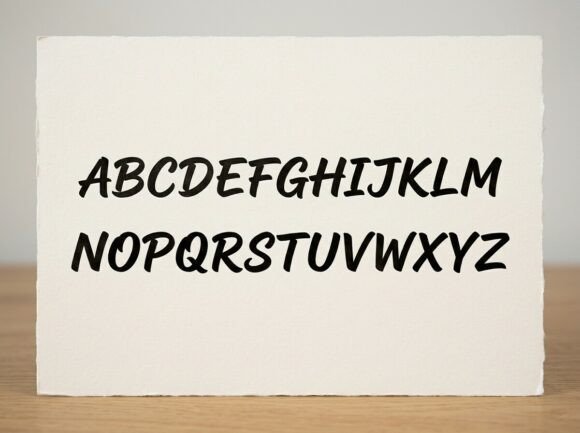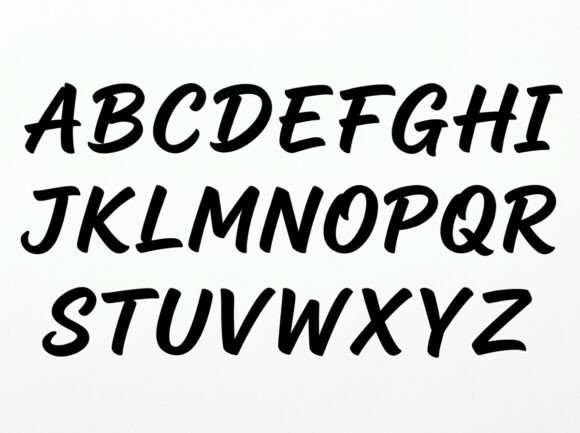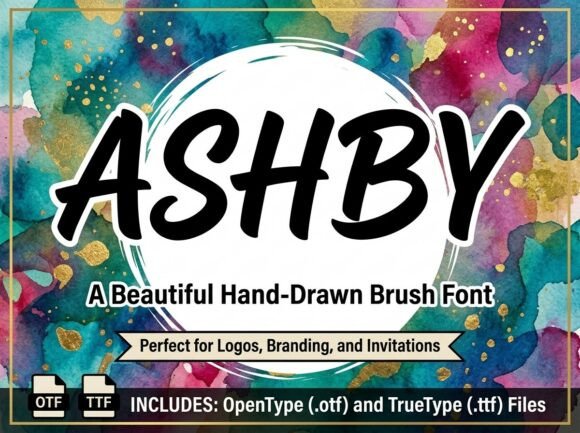
Ashby Font: Elevate Your Designs with a Stunning Decorative Display Font
Are you tired of using the same old fonts in your designs? Look no further than the Ashby Font, a breathtaking decorative display font that’s sure to turn heads. This font is designed to be the center of attention, featuring unique artistic elements and a strong visual personality that will set your work apart from the ordinary.
Perfect for Creators Who Want to Make a Statement
The Ashby Font is perfect for creators who want to add a touch of elegance and sophistication to their designs. Whether you’re working on bold headlines, artistic logos, or creative packaging, this font is versatile enough to handle it all while maintaining a professional and polished finish.
⚠️ IMPORTANT NOTE BEFORE PURCHASE: The Ashby Font is an ALL-CAPS (Uppercase Only) display typeface. This means it does not include lowercase letters. It is specifically designed for high-impact headlines, logos, and decorative initials where every letter is a work of art.
Why Choose the Ashby Font?
So why choose the Ashby Font over other decorative display fonts on the market? Here are just a few reasons:
• Unique Artistic Elements: The Ashby Font features unique artistic elements that will add a touch of personality to your designs.
• Strong Visual Personality: This font has a strong visual personality that will help your designs stand out from the crowd.
• Versatile: The Ashby Font is versatile enough to be used for a variety of design projects, from bold headlines to artistic logos and creative packaging.
• Professional and Polished Finish: Despite its decorative nature, the Ashby Font maintains a professional and polished finish that’s perfect for high-end designs.
Design Ideas Using the Ashby Font
Here are just a few design ideas to get you started:
• Bold Headlines: Use the Ashby Font to create bold headlines that grab attention.
• Artistic Logos: Create artistic logos that showcase your brand’s personality.
• Creative Packaging: Use the Ashby Font to add a touch of elegance and sophistication to your packaging designs.
• Social Media Graphics: Create social media graphics that stand out from the crowd using the Ashby Font.
In conclusion, the Ashby Font is a stunning decorative display font that’s perfect for creators who want to make a statement. With its unique artistic elements, strong visual personality, and versatility, this font is sure to elevate your designs to the next level. So why wait? Purchase the Ashby Font today and start creating designs that turn heads.